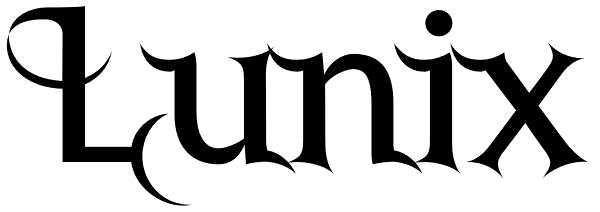
Lunix
The basic idea behind Lunix was a half-moon-serif. Hence the name that is derived from "Luna" the ancient greek goddess of the moon. The serifs pretty soon developed their own life and started to grow and curl. Now all of a sudden the font became a...
Lunix Small Caps
Lunix